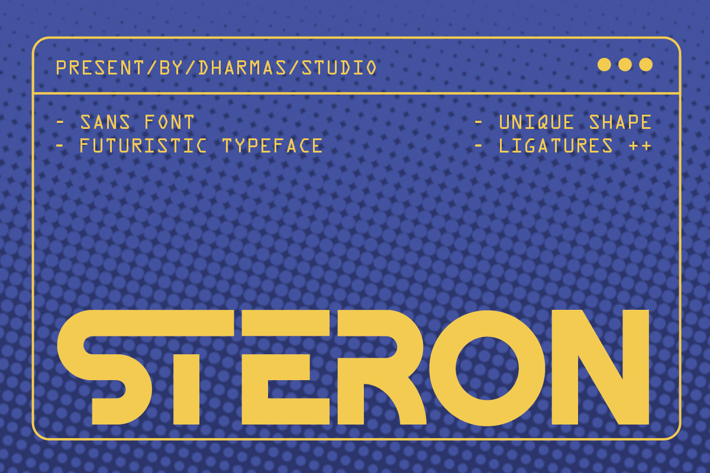
Steron - Futuristic Font
Introducing Steron – A futuristic font crafted by Pandeka Studio, perfect for your next cutting-edge project!
Steron is a modern, high-tech typeface inspired by the era of artificial intelligence, robotics, and futuristic design. Each character embodies elegance and a minimalist future aesthetic, designed to make your projects stand out. Steron is a versatile font featuring special alternates, ligatures, and extensive multilingual support.
Steron is the ideal choice for any creative endeavor or lifestyle design project. Whether you're working on logos, advertisements, watermarks on photography, stationery, branding projects, displays, magazines, invitations, corporate brands, product designs, labels, business projects, or any other futuristic-themed design, Steron adds a unique touch.
Futuristic Ligatures